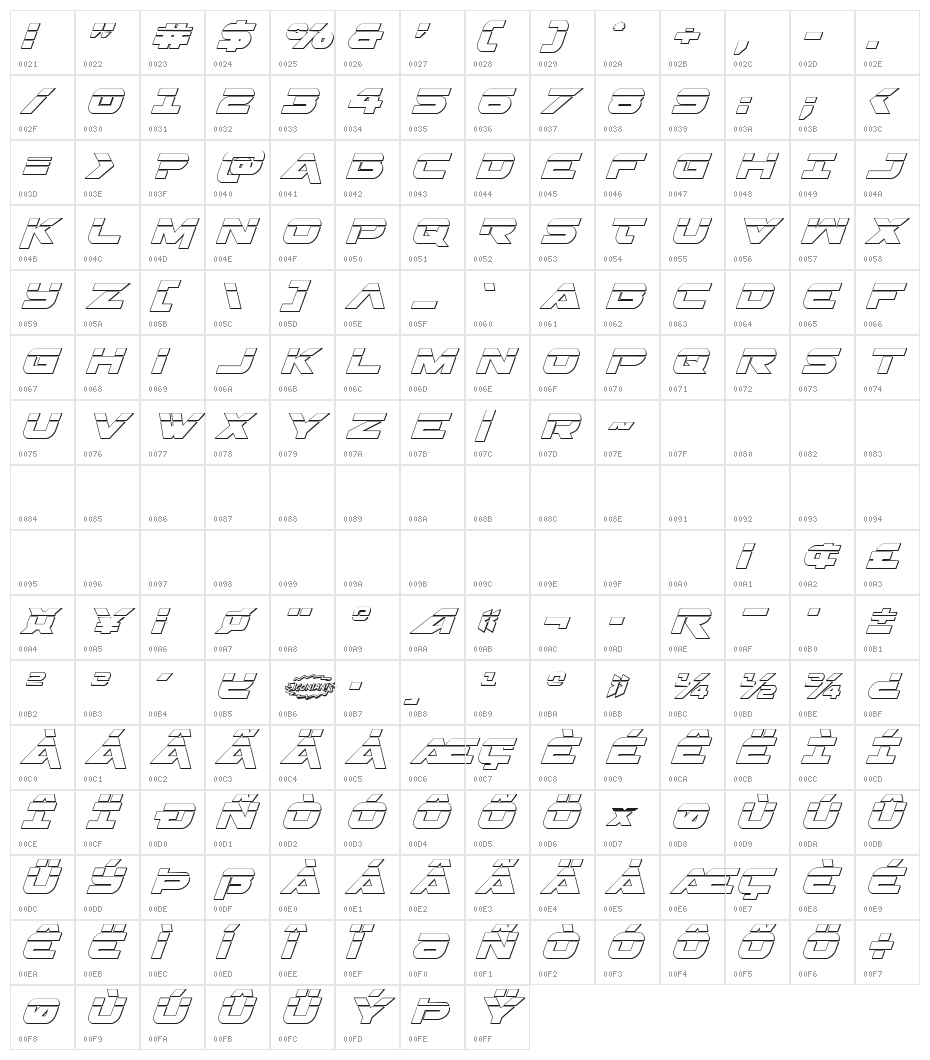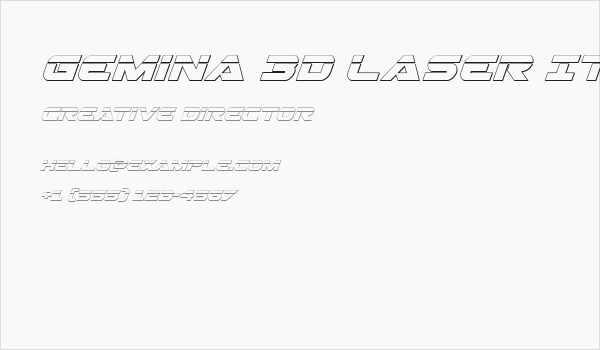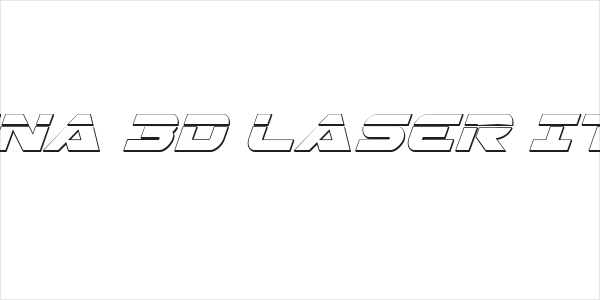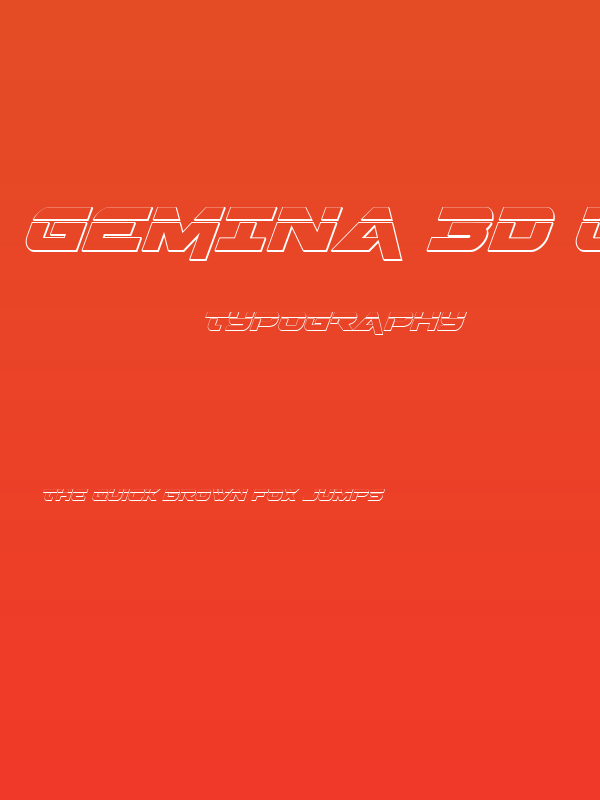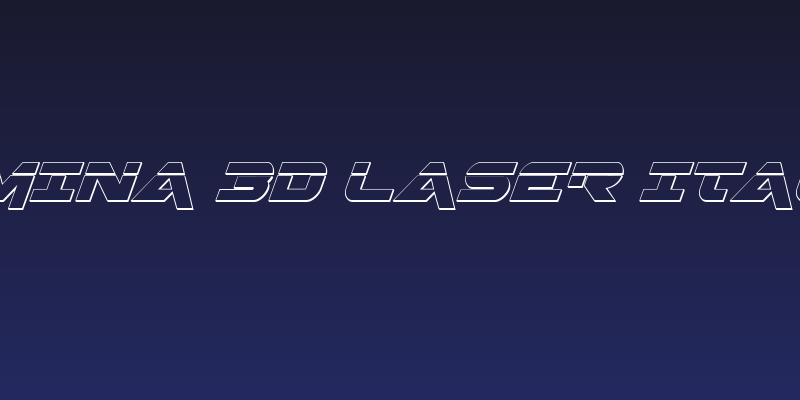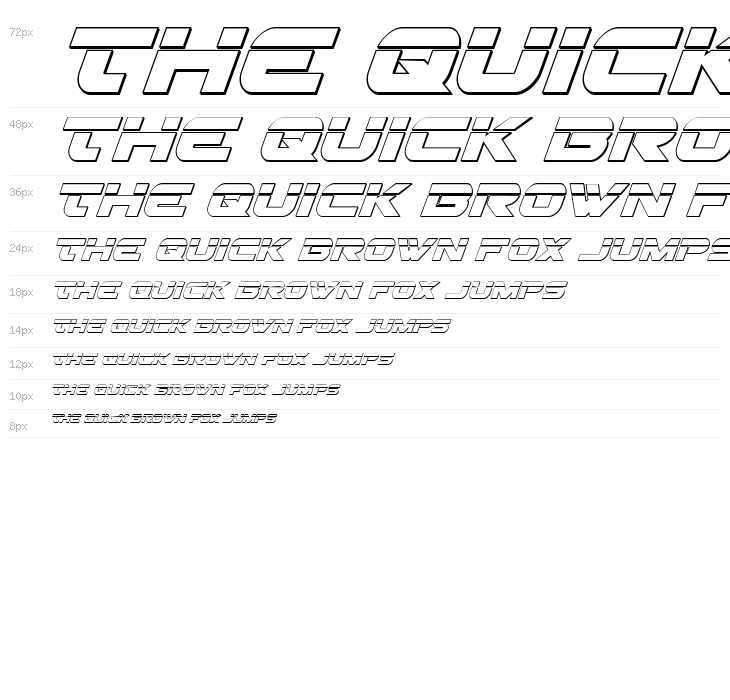
Gemina 3D Laser Italic Font
Gemina 3D Laser Italic Description
This font features a futuristic and dynamic design with a 3D laser-cut appearance. The characters are bold and italicized, giving them a sense of motion and depth. The geometric shapes and sharp angles create a modern and edgy look, suitable for technology-themed projects. The uppercase and lowercase letters maintain a consistent style, while the numbers and special characters complement the overall aesthetic. The font's unique style makes it stand out, ideal for eye-catching headlines and logos.
Proposed ProjectsIdeal for technology branding, sci-fi posters, video game titles, and futuristic event promotions.